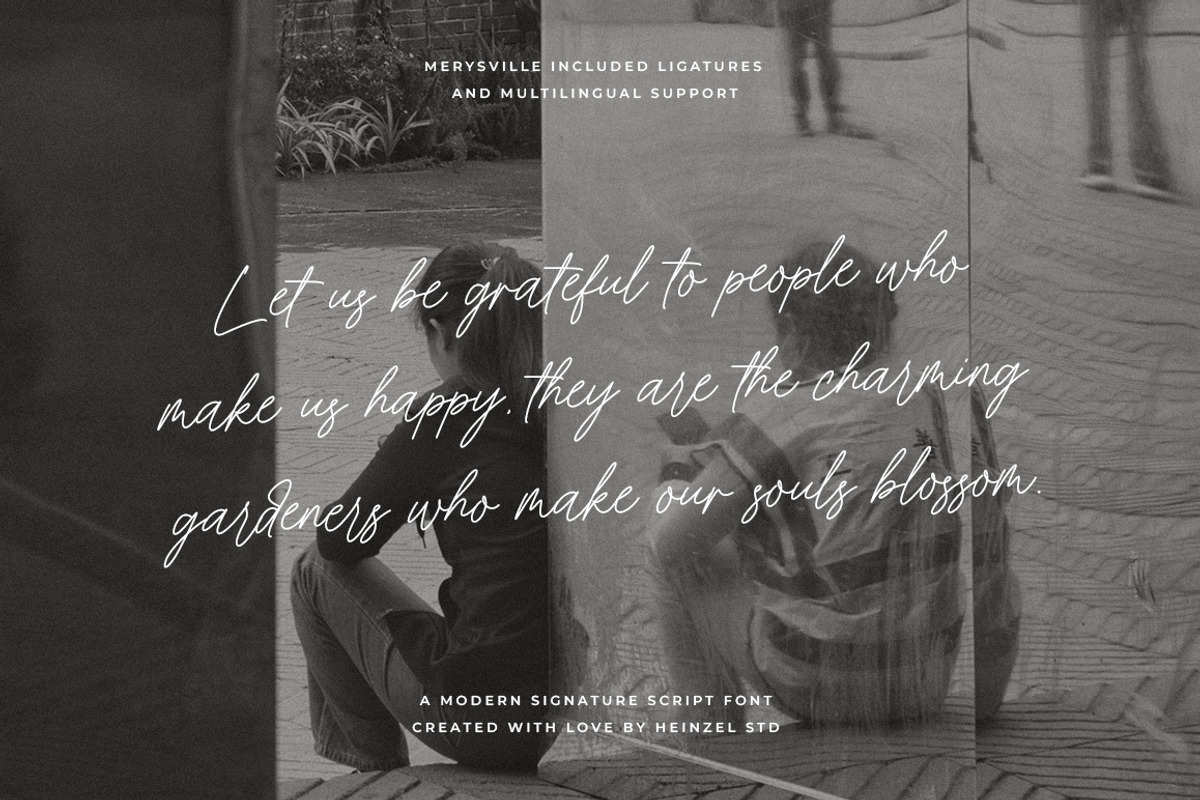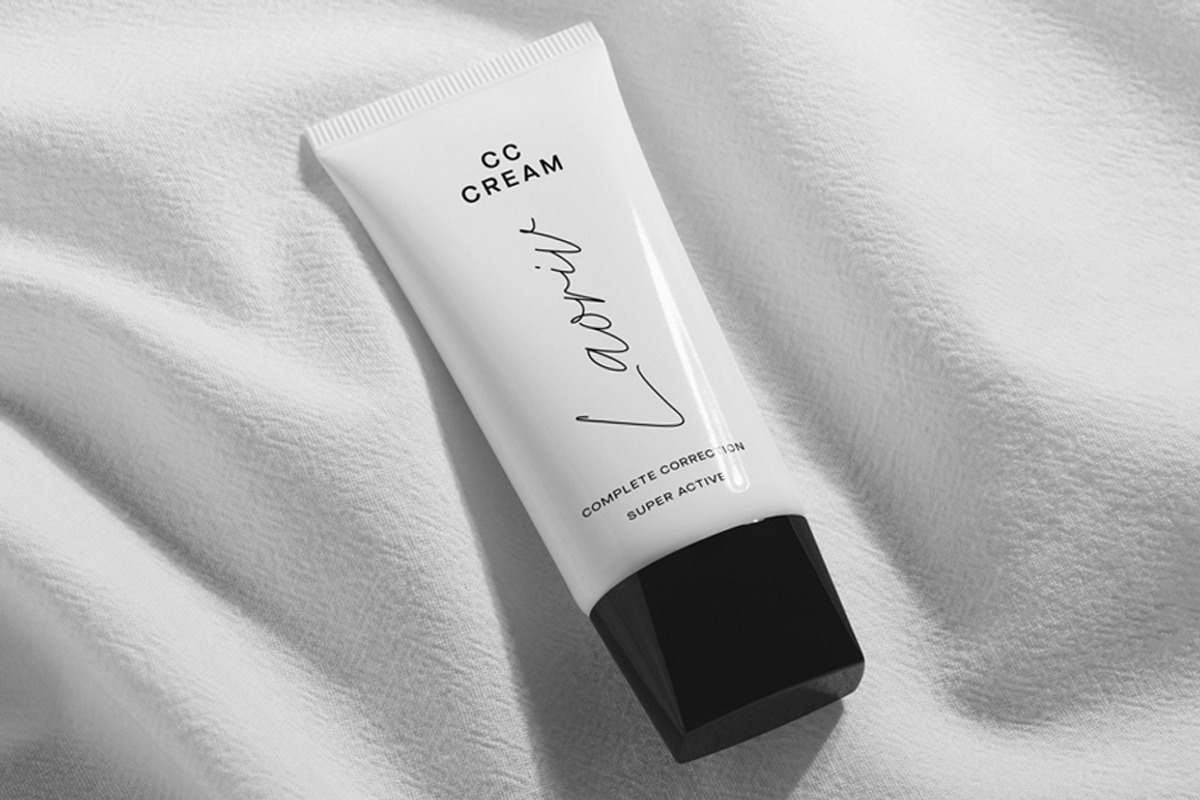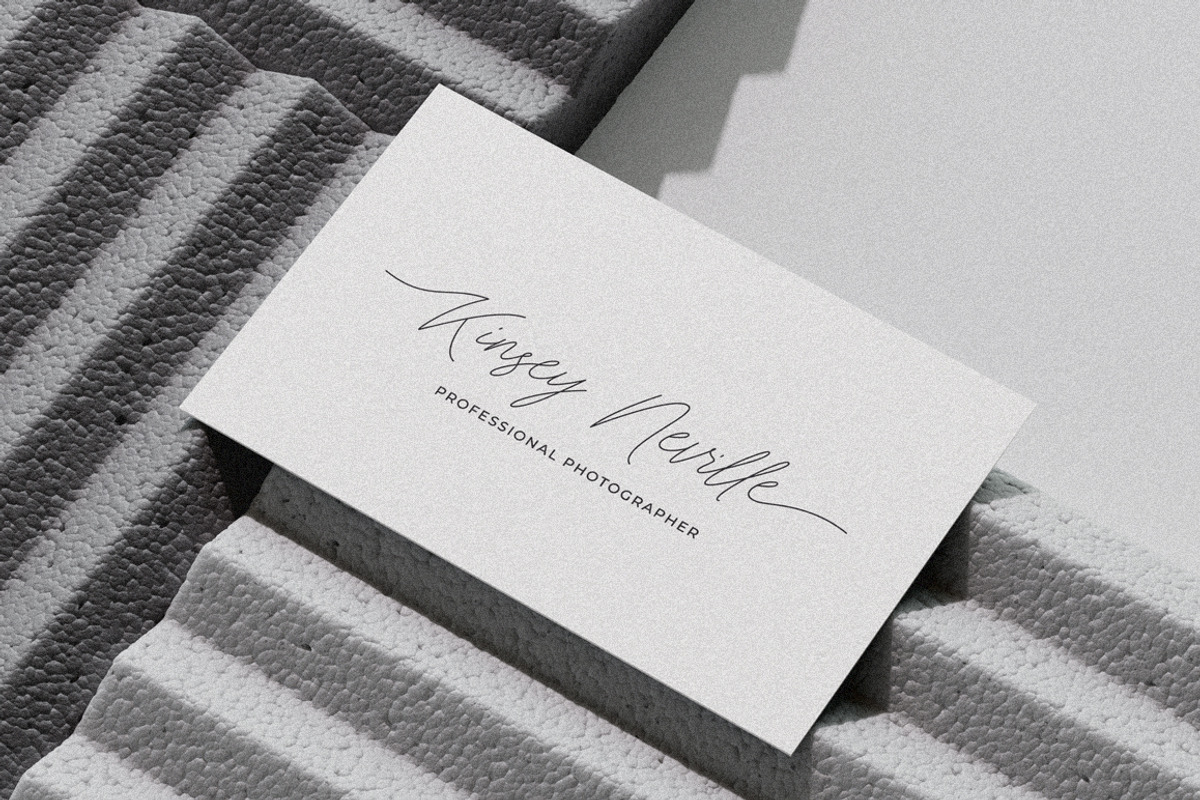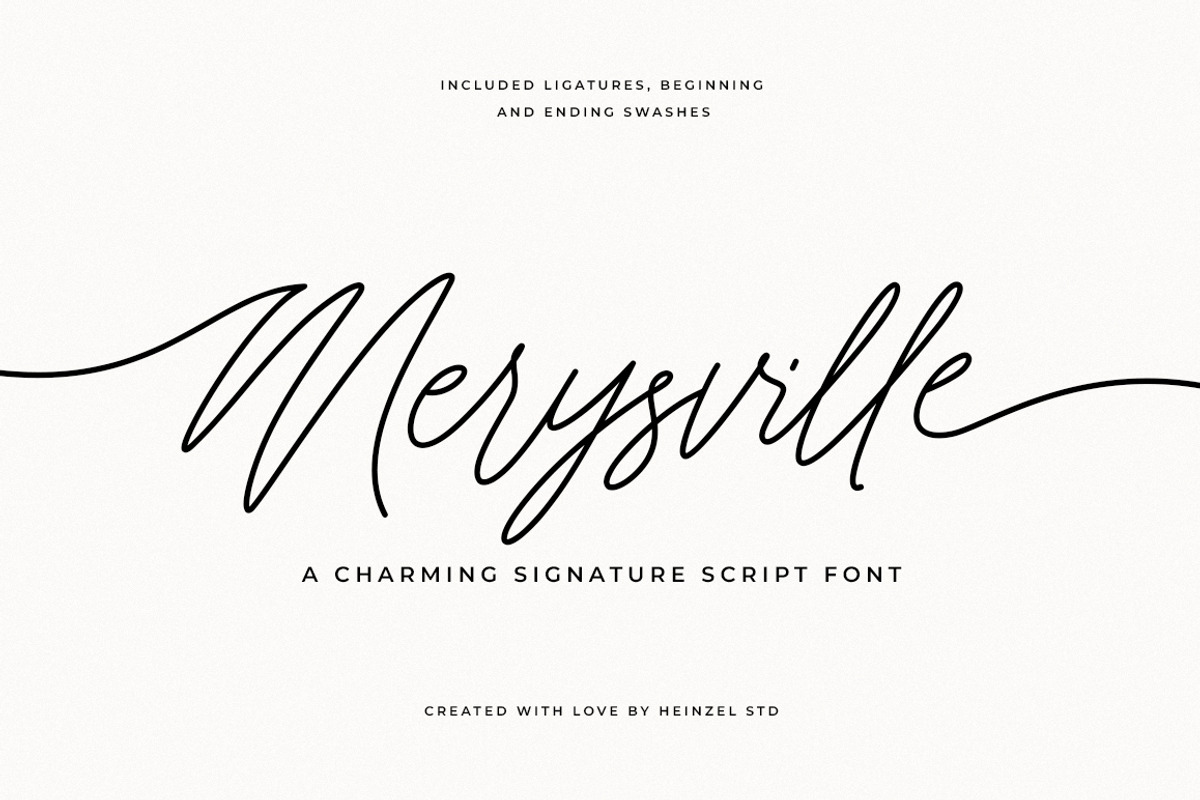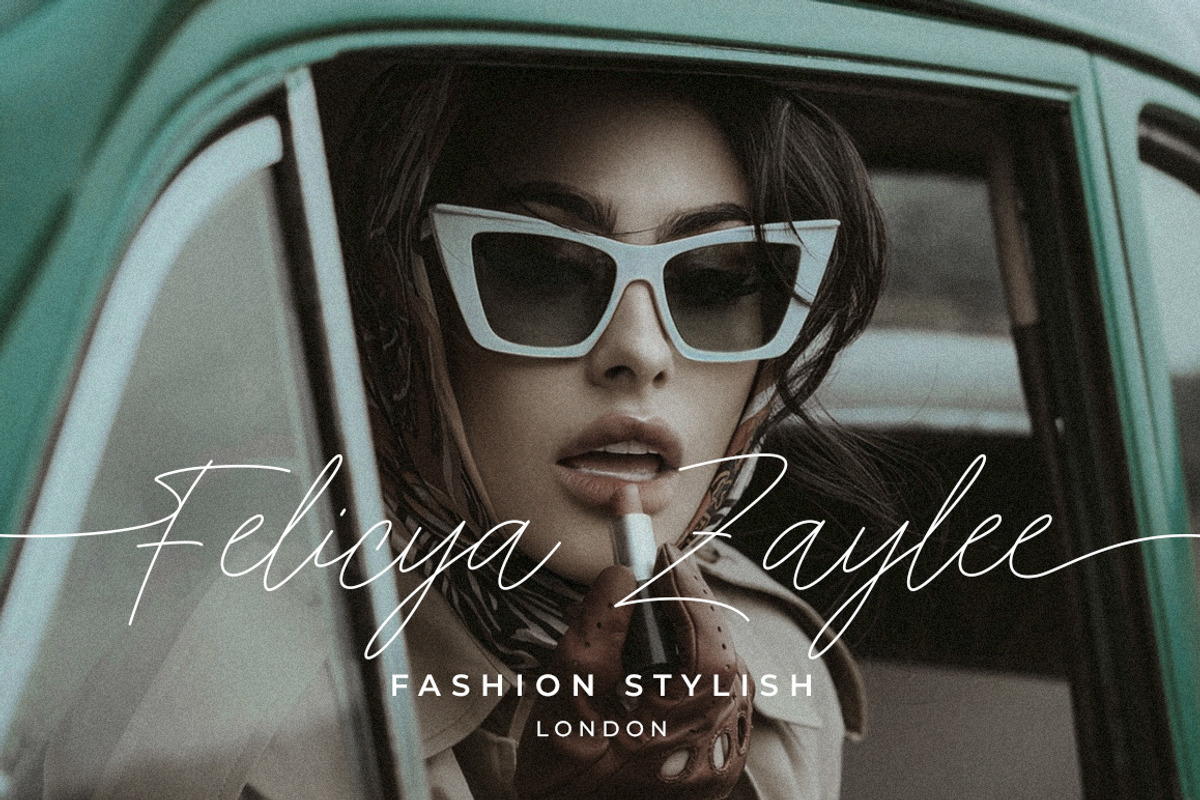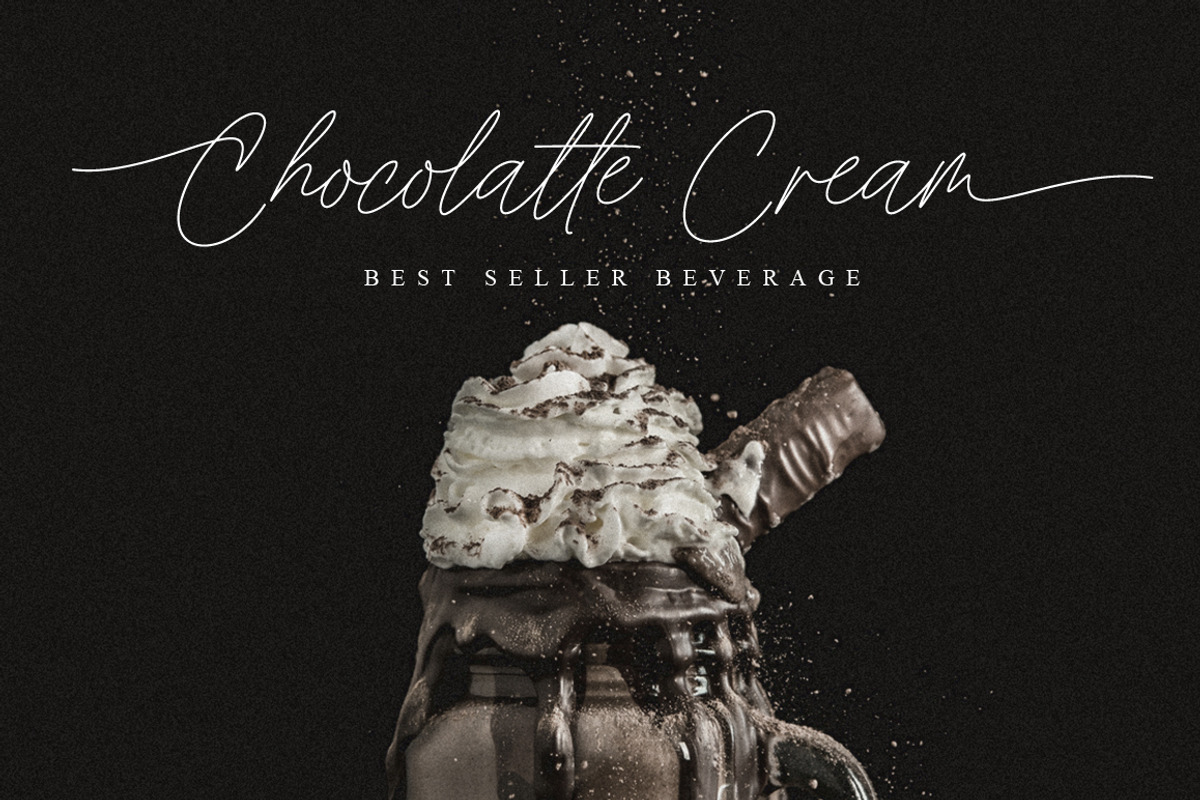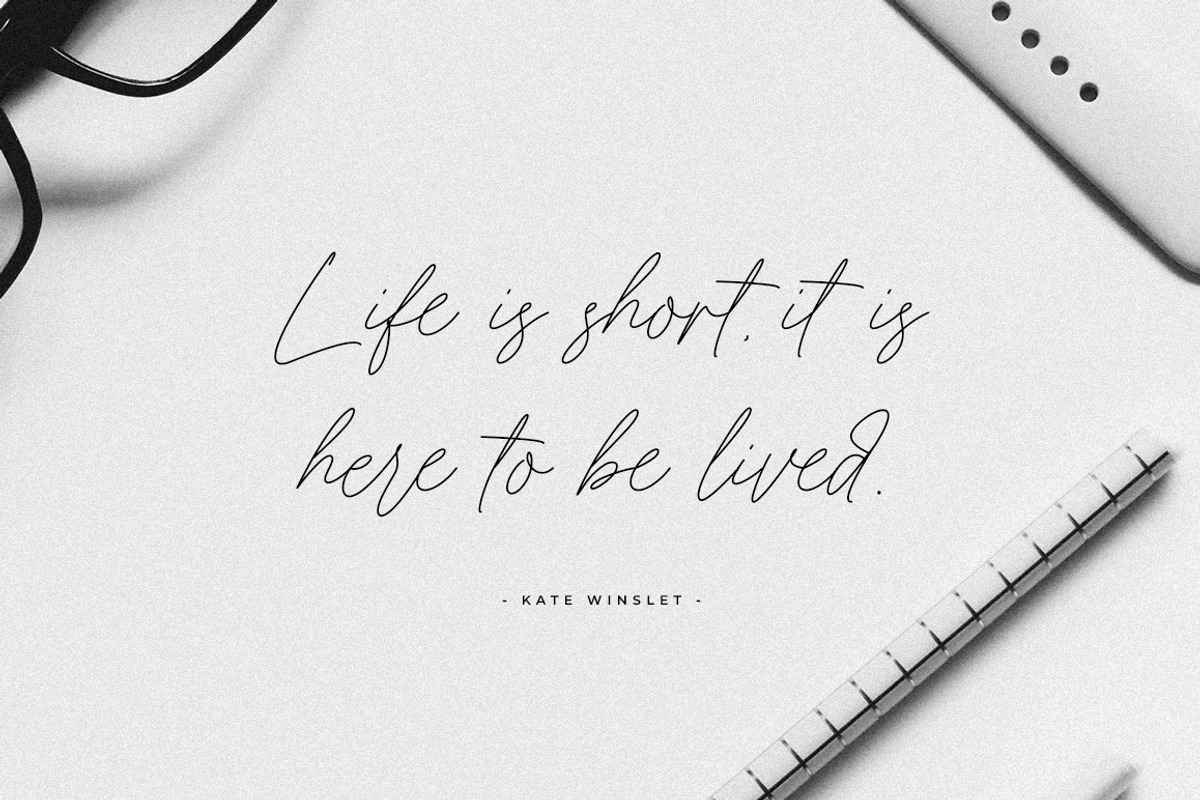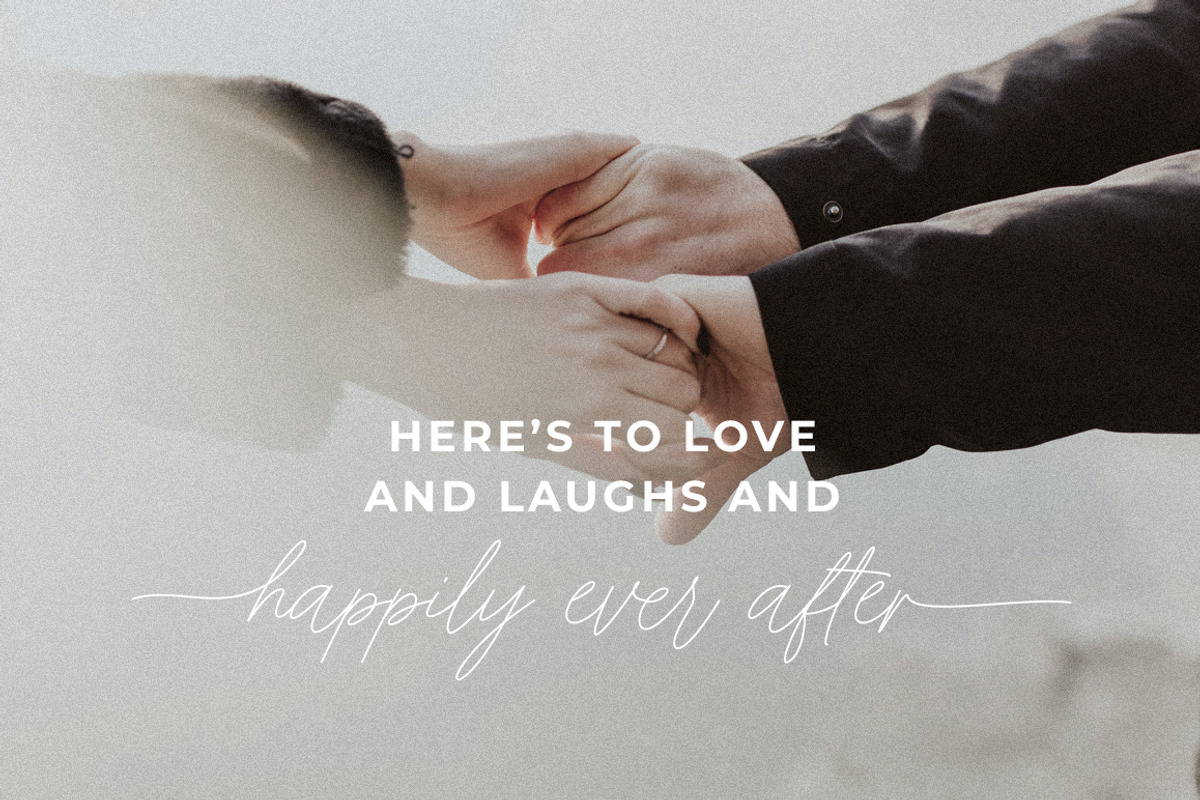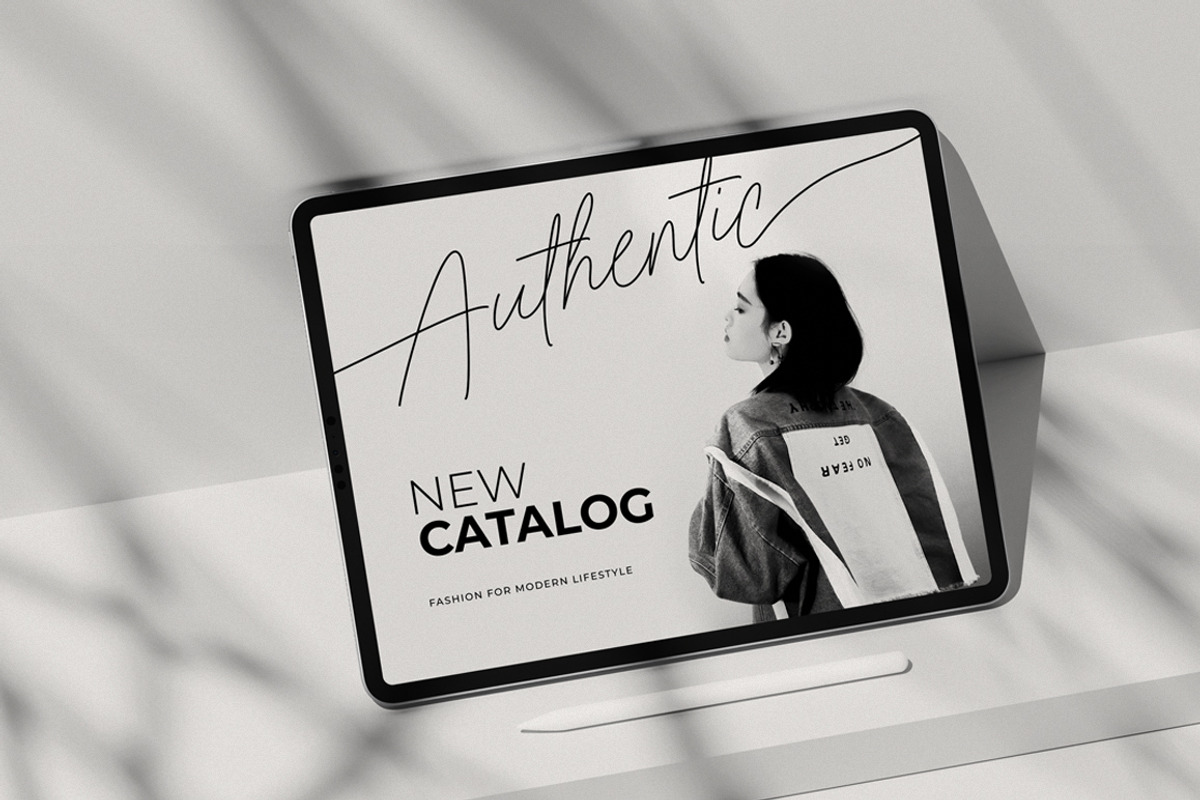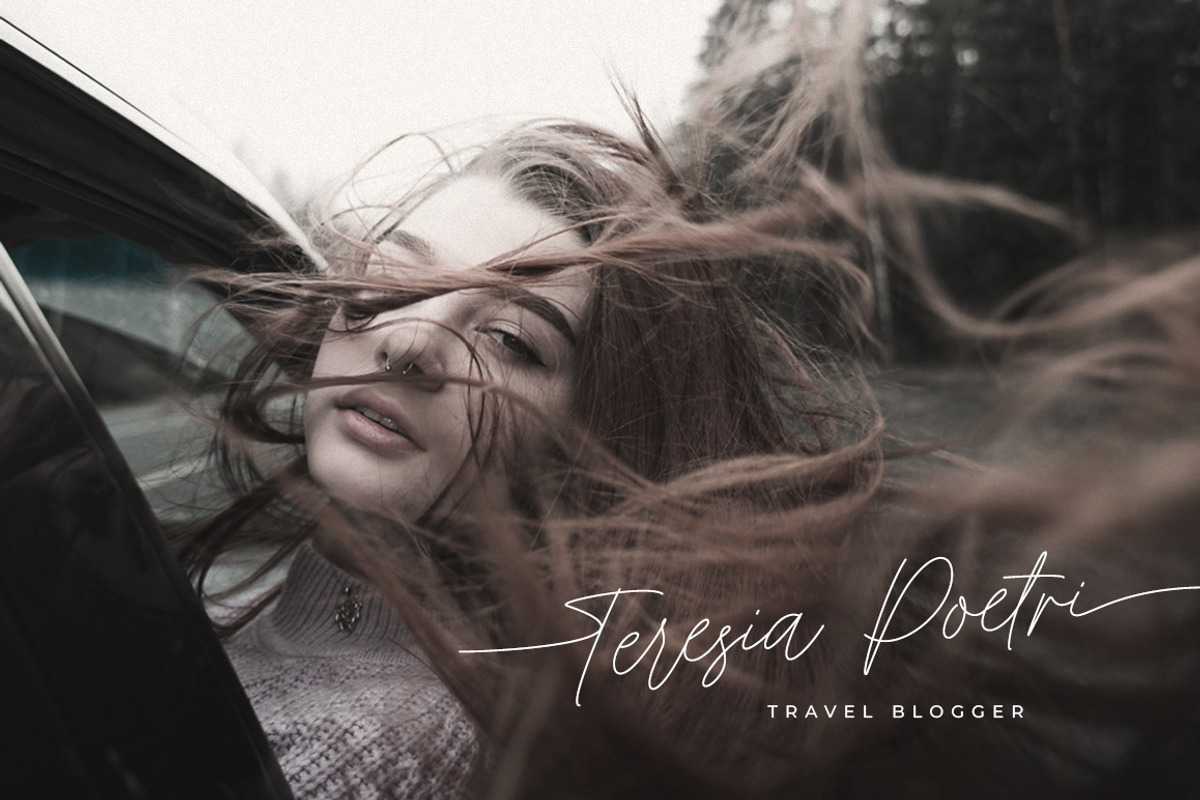
Merysville Charming Signature Font
Merysville is a charming and elegant signature script font designed to bring a personal, sophisticated, and handwritten touch to your creative projects. With its smooth flowing strokes, natural letter connections, and stylish handwritten character, Merysville is perfect for designs that need an authentic signature-inspired aesthetic.
Merysville includes beautiful ligatures, beginning swashes, and ending swashes, giving you the flexibility to create unique and expressive typography. Its graceful curves and refined style make it ideal for logos, branding, wedding invitations, stationery, social media graphics, quotes, packaging, fashion branding, photography, watermarks, and personal signature designs.
Whether you're creating an elegant brand identity or adding a handwritten finishing touch to your artwork, Merysville brings a stylish and personal feel to every design.